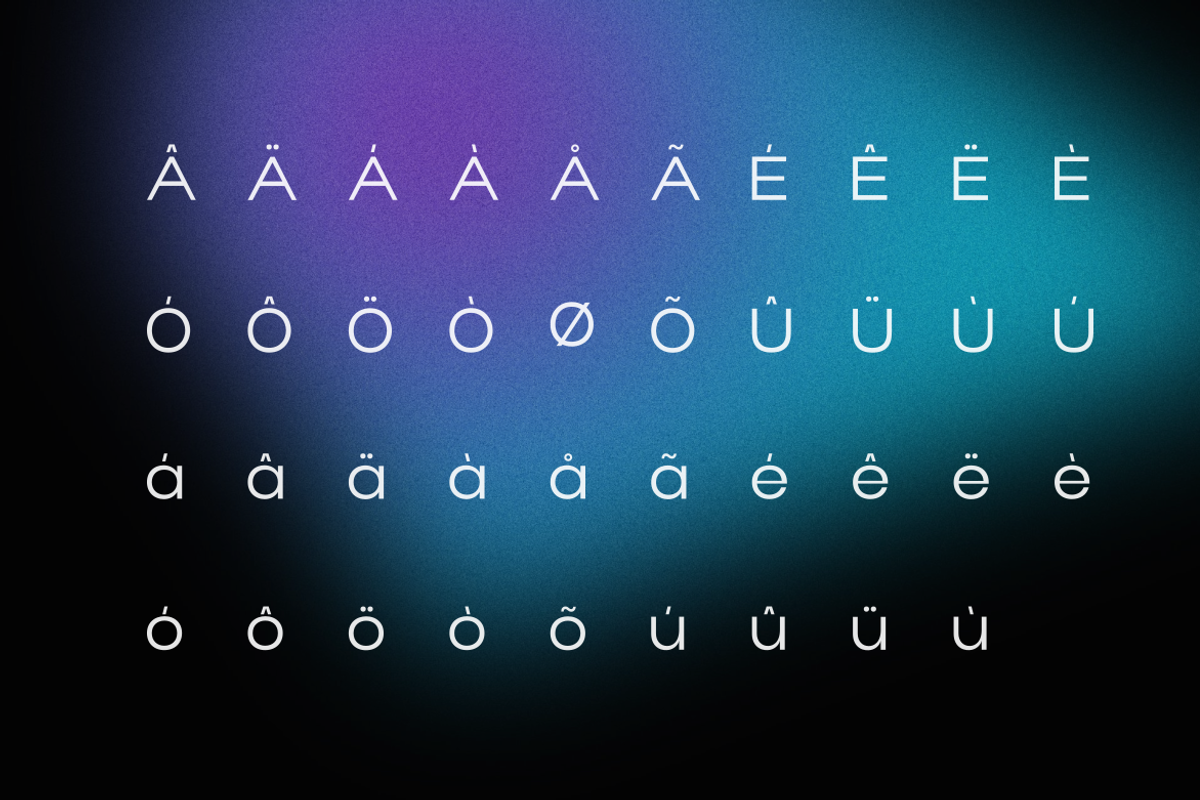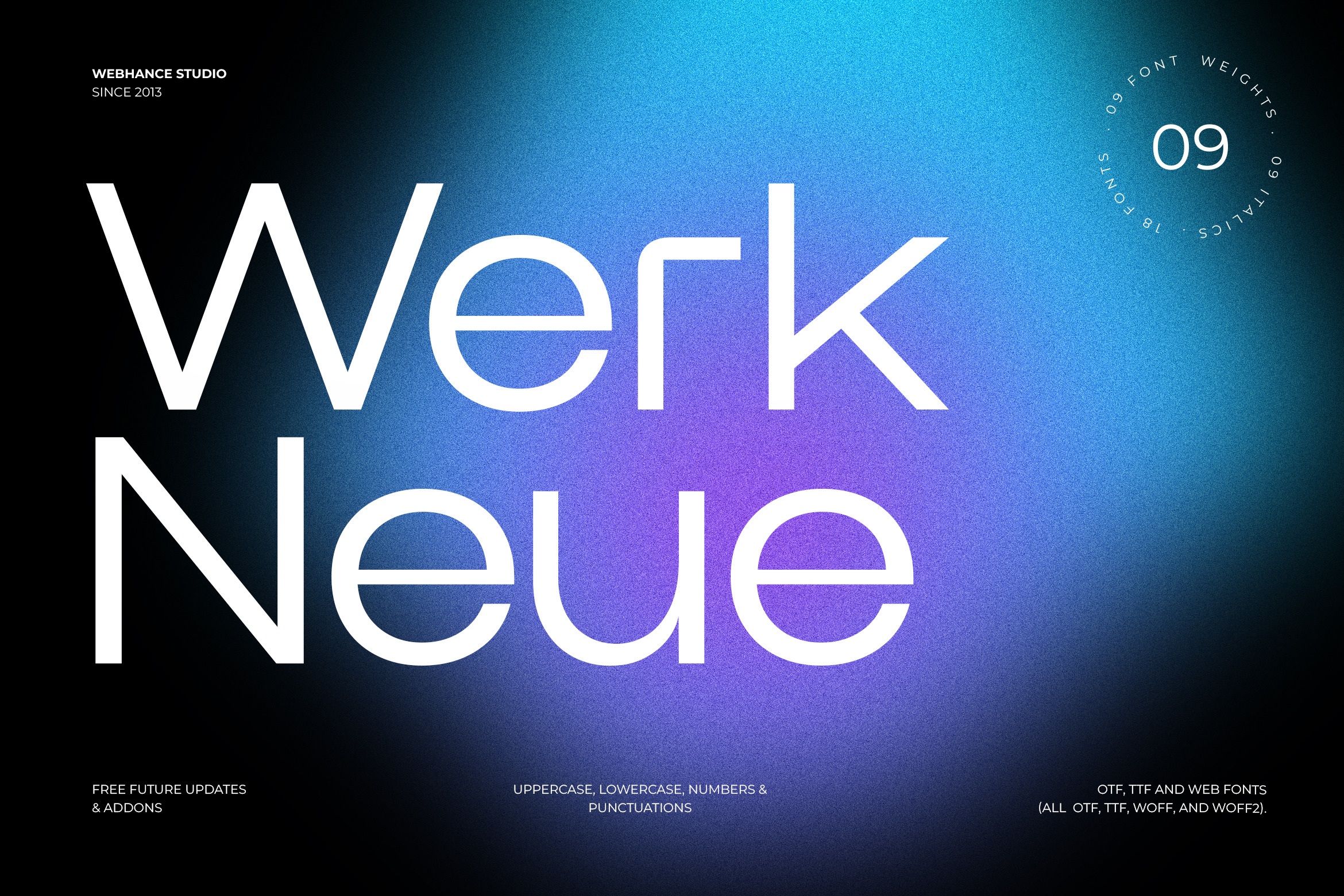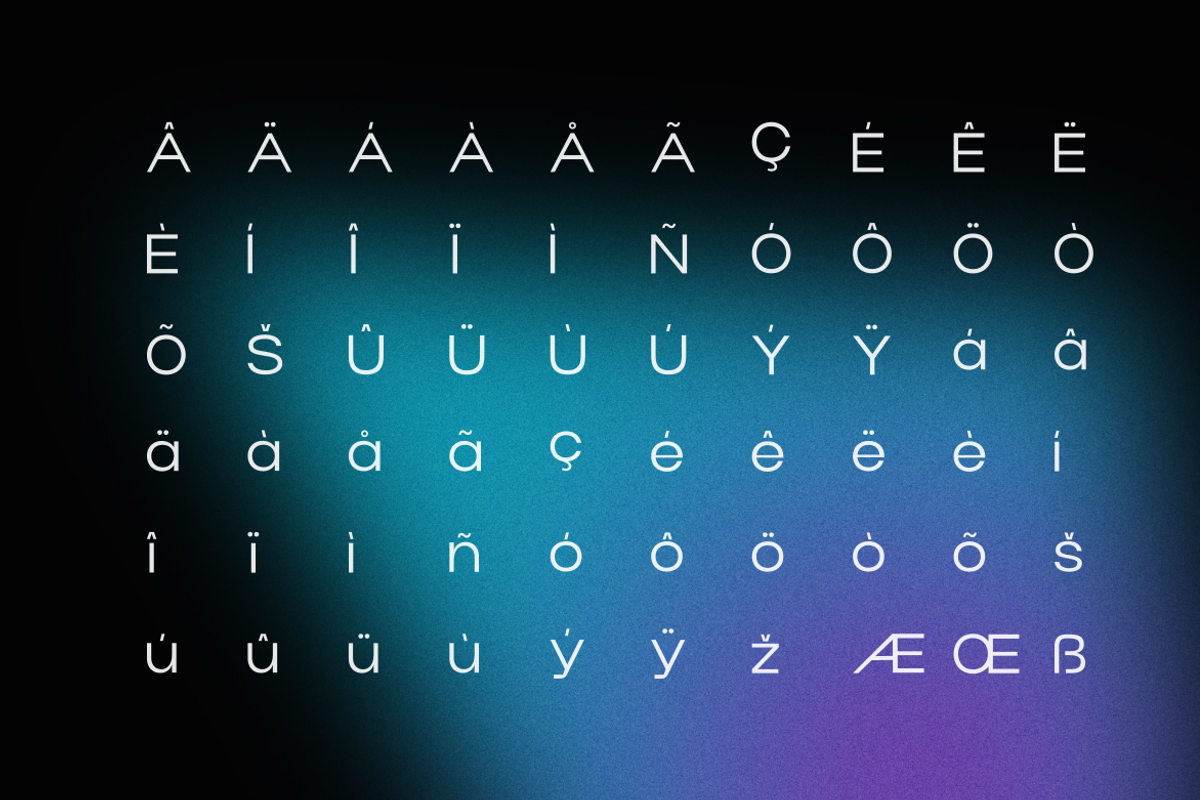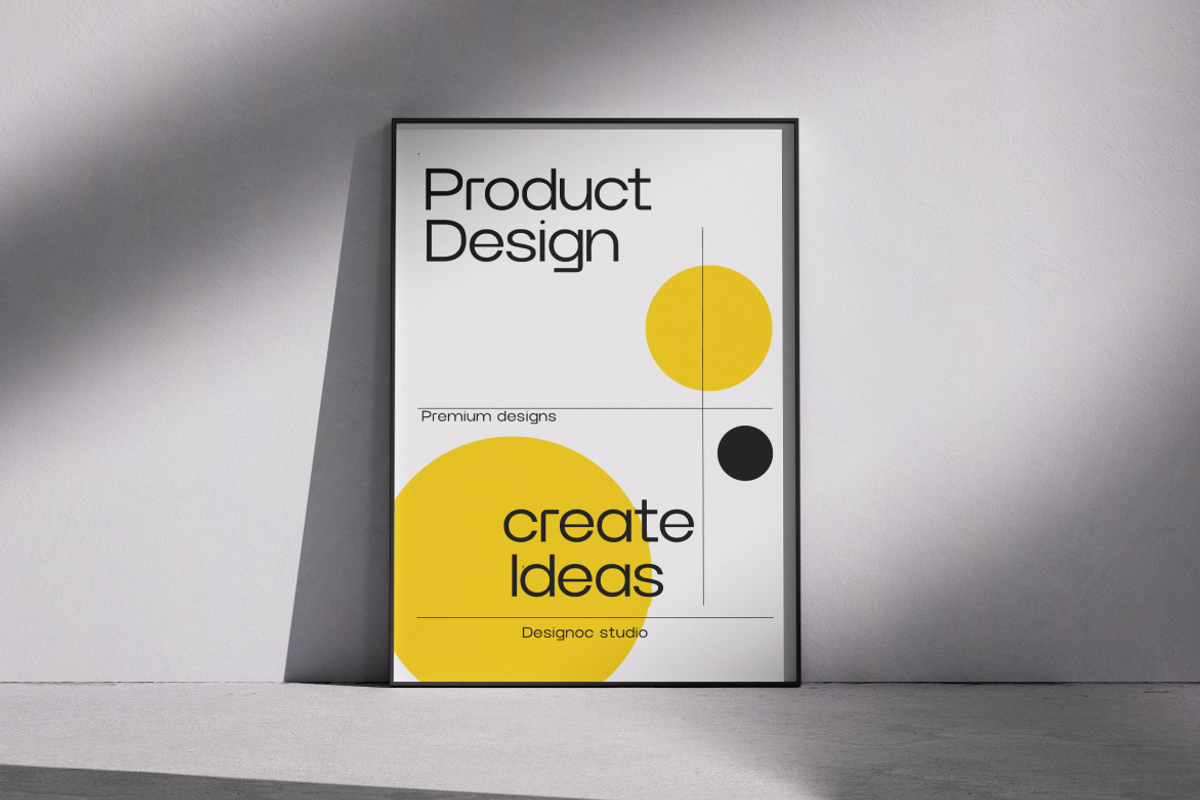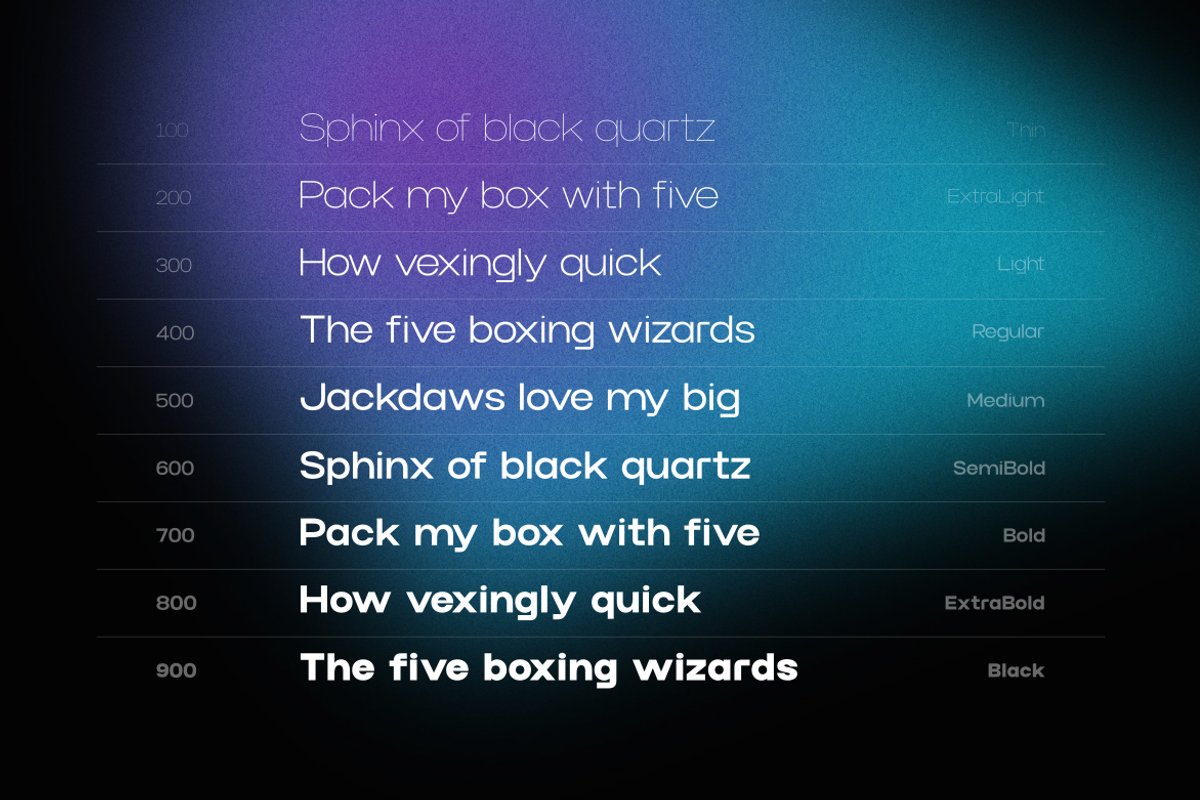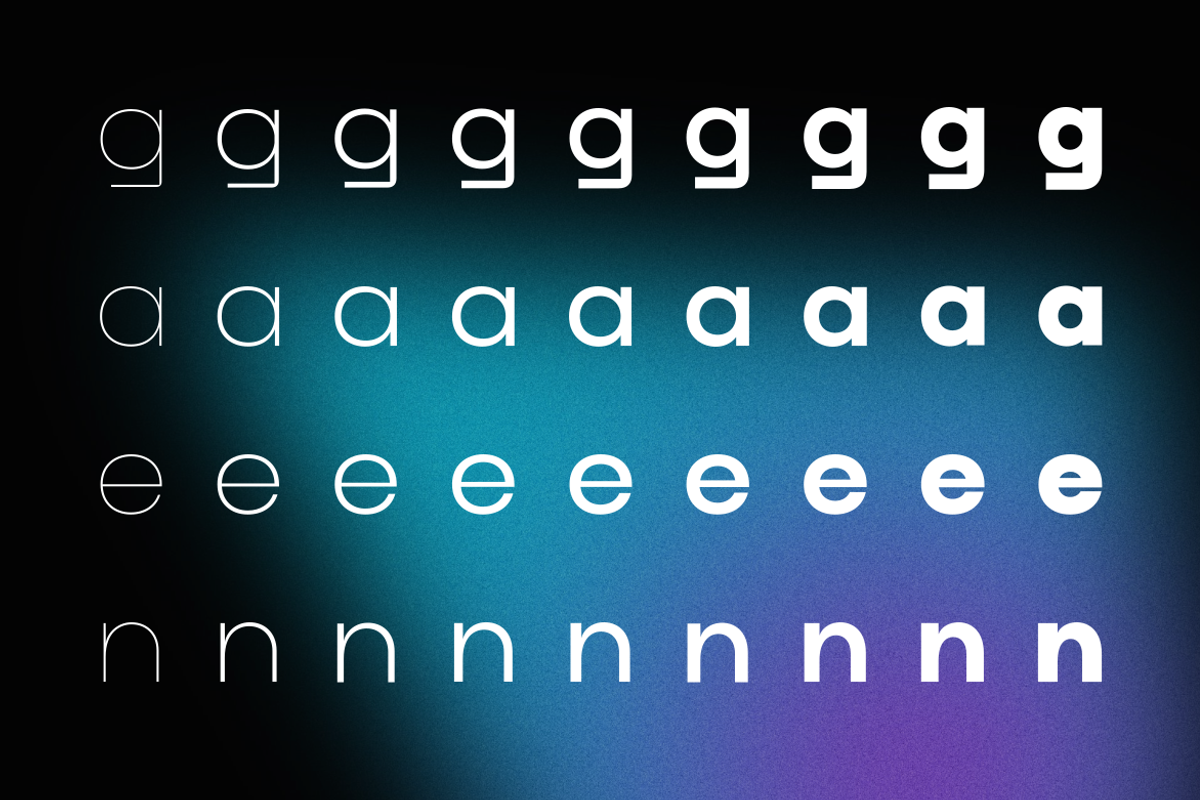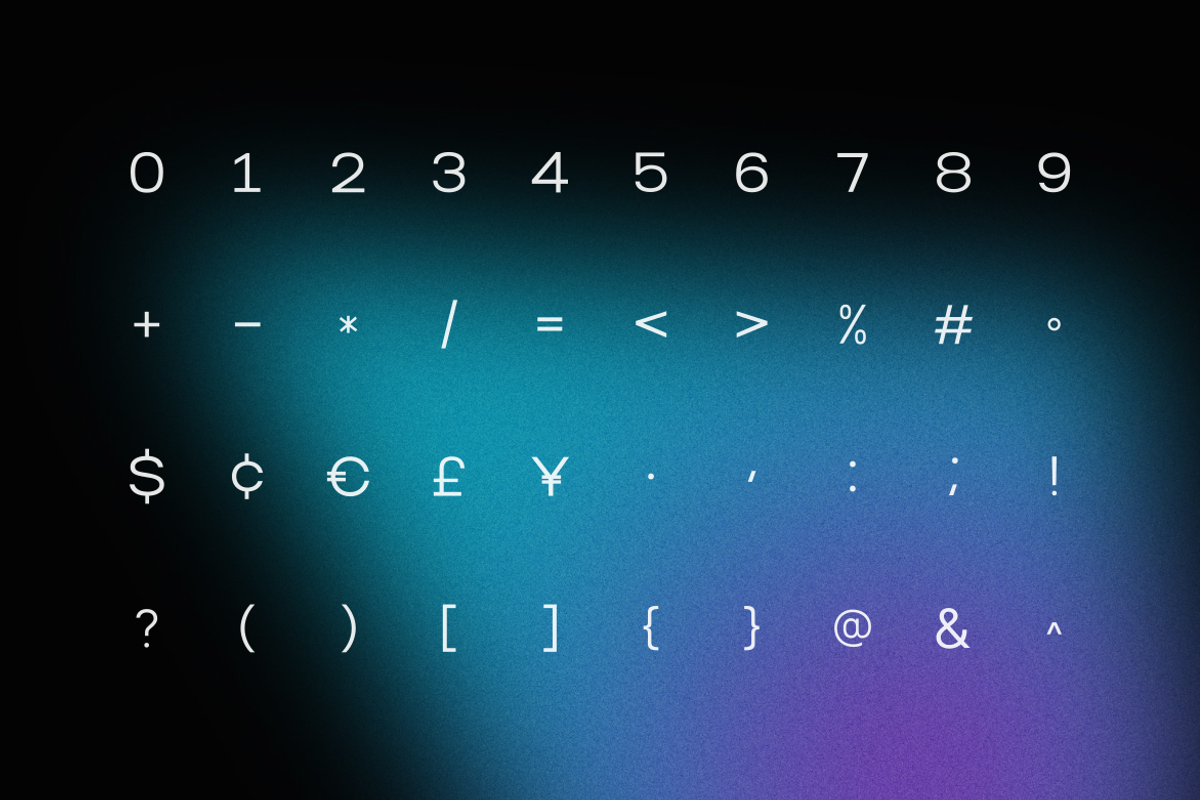
Werk Neue - A Modern Sans-serif Font
Werk Neue is a modern grotesk sans-serif typeface designed for clarity, balance, and everyday use. Its clean letterforms, precise spacing, and neutral character make it highly adaptable across interfaces, branding, and editorial design.
Built with readability in mind, Werk Neue performs consistently across different sizes and contexts. It is well suited for UI design, dashboards, websites, and modern design systems where clarity and structure are essential.
The typeface includes extended Latin support with a full set of accented characters, enabling reliable multilingual use across a wide range of languages.
The family features 9 weights, from Hairline to Black, each paired with matching italics. Whether used for interfaces, brand identities, layouts, or digital products, Werk Neue provides a versatile and dependable typographic system.
Best Use Cases: UI and UX design • Web and app interfaces • Dashboards and data visualization • Branding and identity systems • Editorial layouts and publications • Marketing and digital assets • Presentations and business documents
Supported Languages: Afar, Afrikaans, Aragonese, Asu, Bemba, Bena, Catalan, Cebuano, Chiga, Corsican, Danish, Taita, German, English, Spanish, Basque, Filipino, French, Friulian, Western Frisian, Irish, Scottish Gaelic, Galician, Swiss German, Gusii, Manx, Interlingua, Indonesian, Ido, Italian, Lojban, Machame, Jju, Makonde, Kabuverdianu, Kalaallisut, Kalenjin, Shambala, Cornish, Latin, Luxembourgish, Ligurian, Luo, Luyia, Morisyen, Malagasy, Makhuwa-Meetto, Malay, Norwegian Bokmål, North Ndebele, Low German, Dutch, Norwegian Nynorsk, Norwegian, South Ndebele, Northern Sotho, Nyankole, Occitan, Oromo, Portuguese, Romansh, Rundi, Rombo, Kinyarwanda, Rwa, Samburu, Sangu, Sardinian, Sena, Sango, Sidamo, Southern Sami, Shona, Somali, Albanian, Swati, Saho, Southern Sotho, Sundanese, Swedish, Swahili, Teso, Tswana, Taroko, Tsonga, Volapük, Vunjo, Walloon, Warlpiri, Xhosa, Soga, Zulu